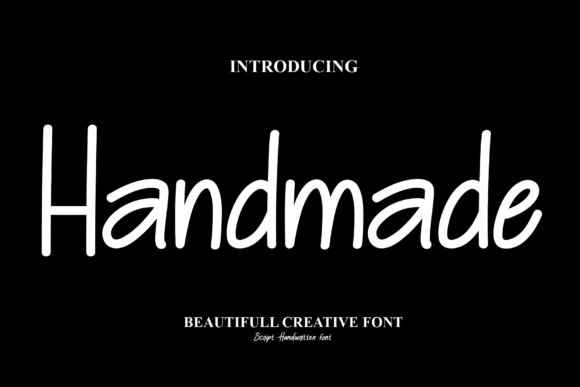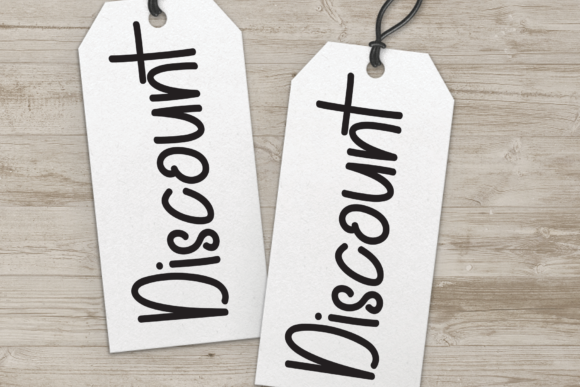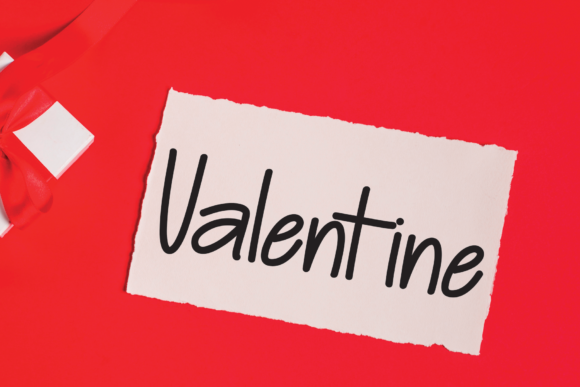
Handmade is a versatile and distinctive handwritten font that brings a touch of handmade charm to a variety of design projects. Its simplicity and uniqueness make it a great choice for adding a personalized and elegant feel to your creations across different platforms.
When it comes to wedding invitations, Handmade adds a warm and intimate vibe to your designs. Its handcrafted appearance conveys a sense of care and attention, setting the tone for a special and memorable celebration. Whether you’re planning a rustic wedding or a more modern affair, Handmade complements the aesthetics beautifully.
For business applications, Handmade adds a sense of authenticity and individuality to your branding materials. Incorporating the font into your business cards, packaging, and promotional materials imparts a genuine and approachable touch to your brand identity. It communicates that your business values craftsmanship and personal connection.
Greeting cards take on a special character with Handmade’s unique style. Whether it’s heartfelt messages, birthday wishes, or holiday greetings, the font brings a personal and sincere element to your cards. Its adaptability allows you to convey a range of emotions, making your cards truly heartfelt and memorable.
On social media, Handmade infuses your posts with a personal and down-to-earth quality. Whether you’re sharing quotes, lifestyle content, or updates, the font adds an artisanal touch that resonates with your audience. It ensures that your posts stand out in a sea of digital content and create a genuine connection.
In home decor and visual art projects, Handmade lends a handcrafted and artistic feel to your creations. Using the font for wall art, personalized quotes, or signage brings a touch of uniqueness and creativity to your living spaces. Its simple elegance transforms ordinary words into visually pleasing and meaningful pieces.
Handmade’s adaptability allows it to seamlessly blend with different design styles, maintaining a consistent and polished look across various mediums and applications. Its versatility ensures that your projects have a cohesive and refined appearance.
In summary, Handmade is a font that effortlessly combines simplicity, adaptability, and a personal touch. Its distinct and handcrafted nature makes it a valuable asset for a range of design endeavors, including wedding invitations, business cards, greeting cards, social media posts, wall art, and more. Whether you’re aiming for an artisanal, heartfelt, or personalized aesthetic, Handmade is a font that adds an element of elegance and authenticity to your creative projects.